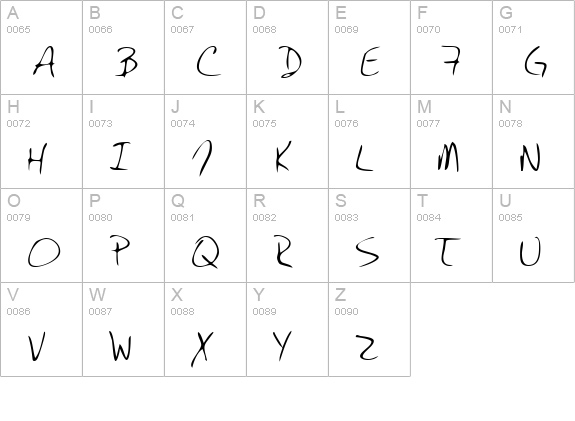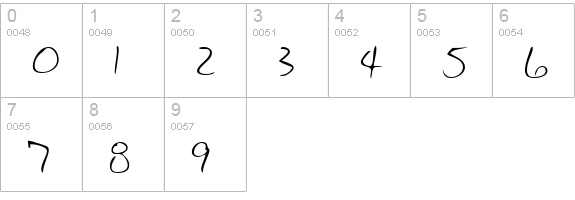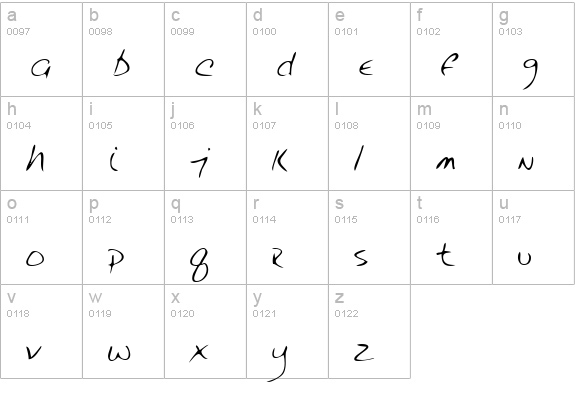
QuentinsHand Regular is the standard, neutral variant in the QuentinsHand typeface family \xE2\x80\x94 well suited to general body text, paragraphs, and standard typographic work.
QuentinsHand Regular font is a captivating and versatile typeface that exudes a sense of casual elegance. With its smooth and flowing letterforms, this font is perfect for adding a personal touch to any design project. Whether you're creating invitations, greeting cards, or even logo designs, QuentinsHand Regular font effortlessly brings a unique and handcrafted feel to your work. This font's free-spirited nature is reflected in its organic lines and charming imperfections, giving it a delightful and approachable character. Its slightly slanted and slightly condensed letterforms lend themselves well to a wide range of applications, making it an ideal choice for both print and digital media. What makes QuentinsHand Regular font even more appealing is that it is freely available to download at FontsMarket.com. This means that you can easily access and incorporate this font into your projects without any hassle. Whether you're a professional designer or a hobbyist, having access to high-quality fonts like QuentinsHand Regular font can truly elevate your creative endeavors. So go ahead and download QuentinsHand Regular font today from FontsMarket.com. Unleash your creativity and let this font add a touch of personality and flair to your designs. With its free availability and versatility, QuentinsHand Regular font is a must-have addition to any font collection.